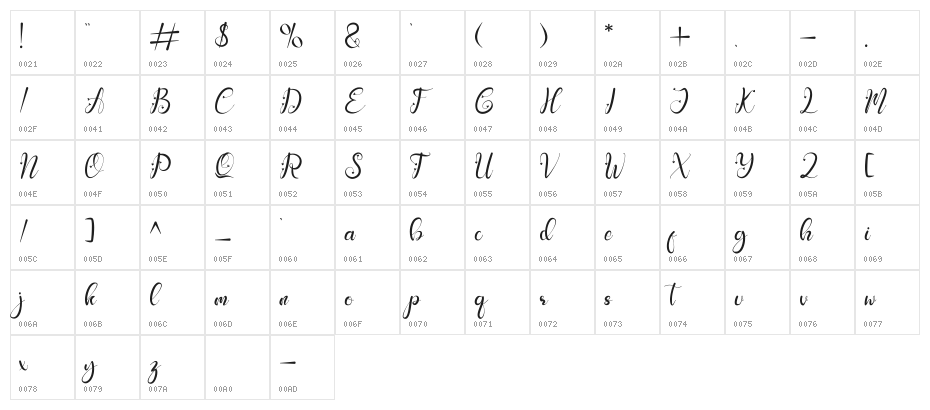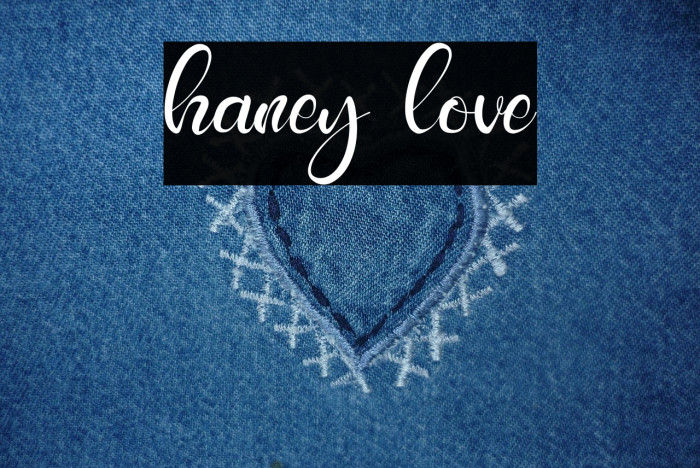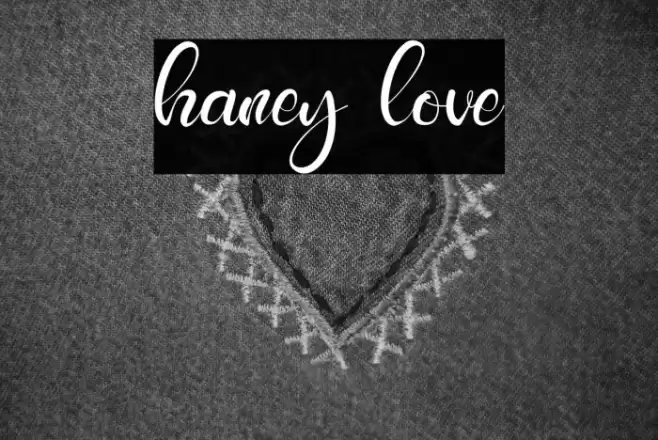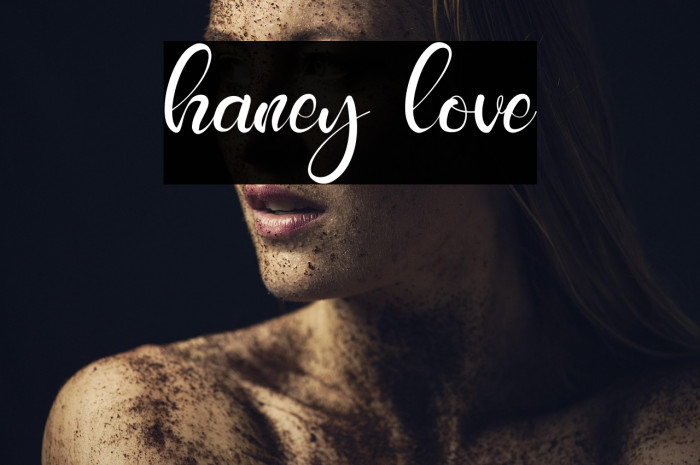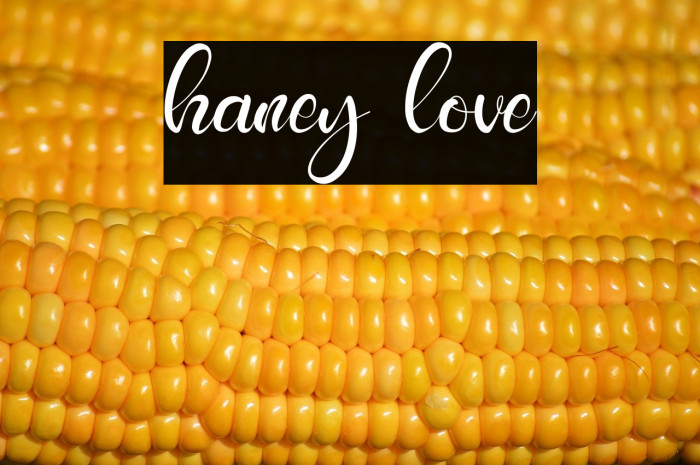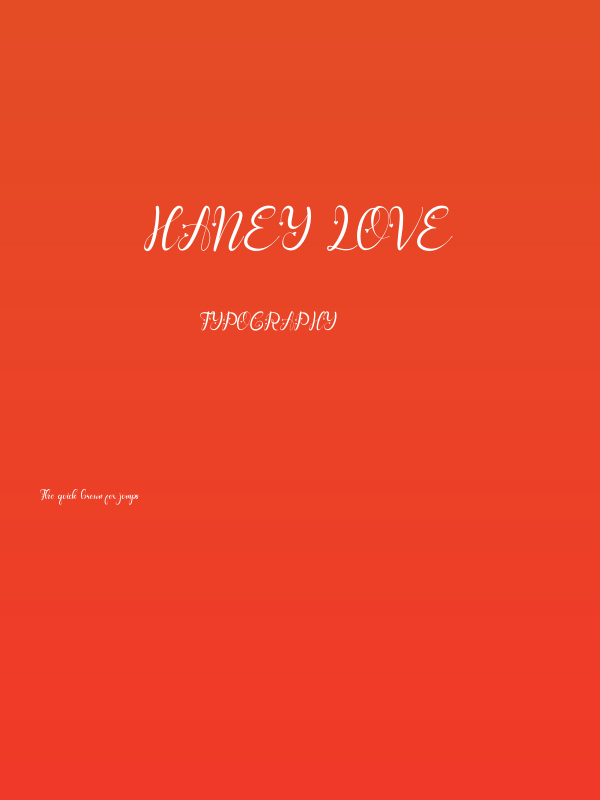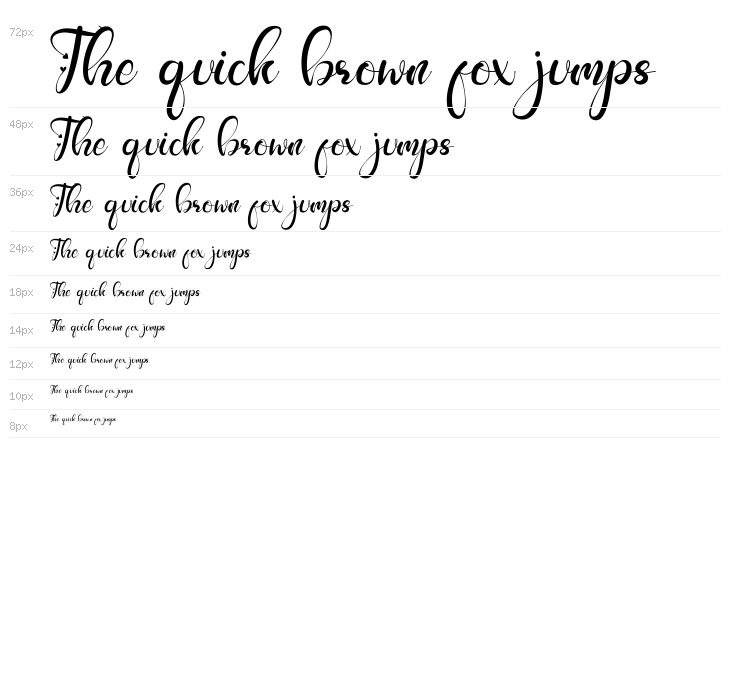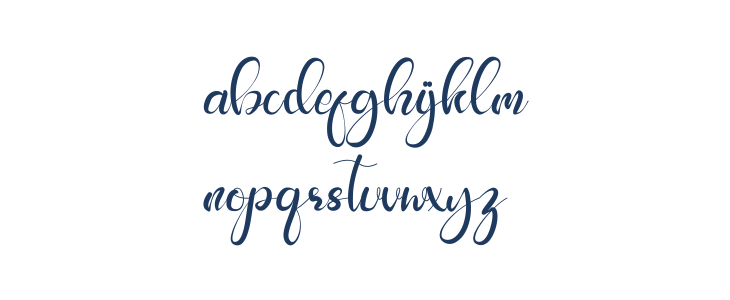
haney love Font
haney love Description
This font features an elegant and flowing script style, characterized by its intricate loops and flourishes. The uppercase letters are particularly ornate, with extended strokes and decorative elements that give a sense of movement and grace. The lowercase letters maintain a consistent style, with smooth curves and a slightly slanted orientation that enhances readability while preserving the decorative nature. The numerals and special characters are designed to match the overall aesthetic, ensuring a cohesive appearance across all text. This font is ideal for projects that require a touch of sophistication and elegance.
| Proposed Projects | Wedding invitations, luxury branding, elegant signage, and decorative headings. |